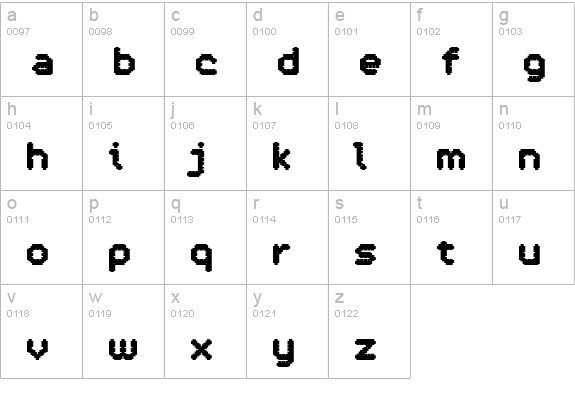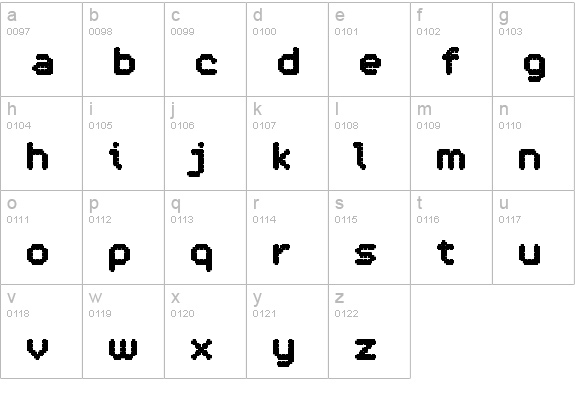
OneCross Black is a maximum-weight, dramatic variant in the OneCross typeface family \xE2\x80\x94 well suited to maximum-impact headlines, posters, and packaging.